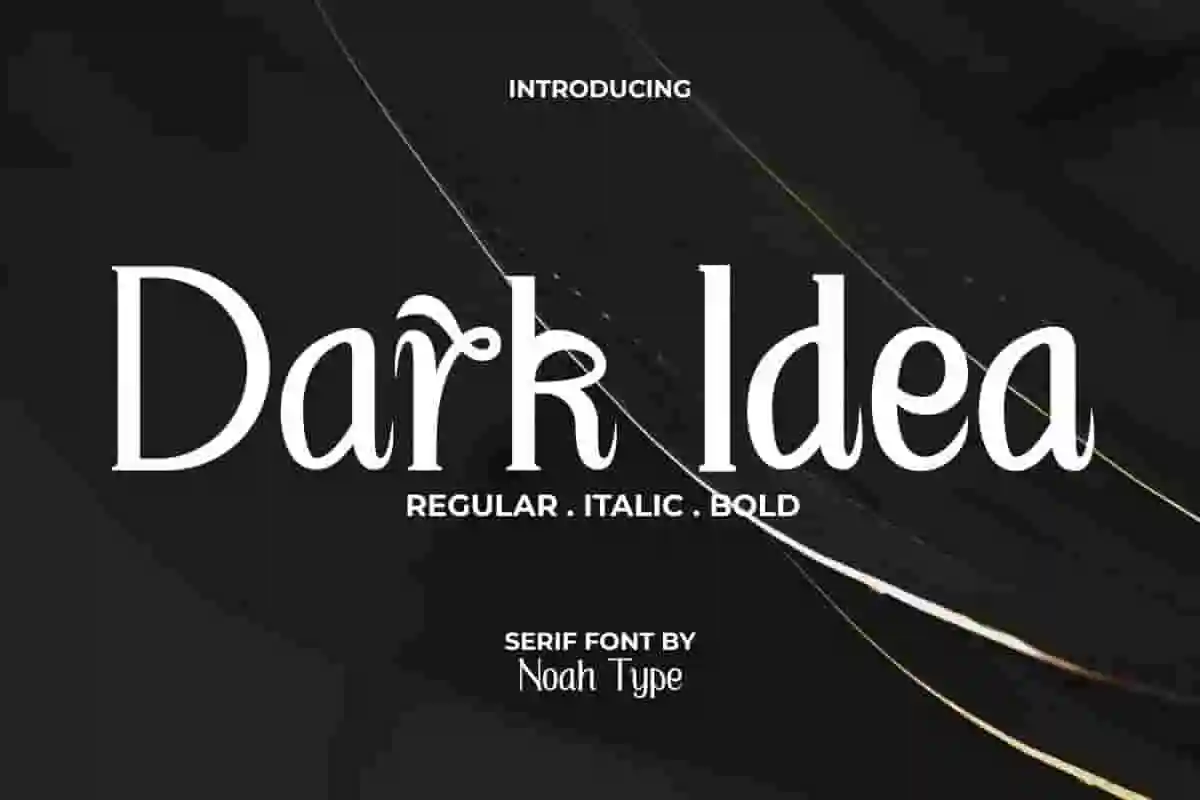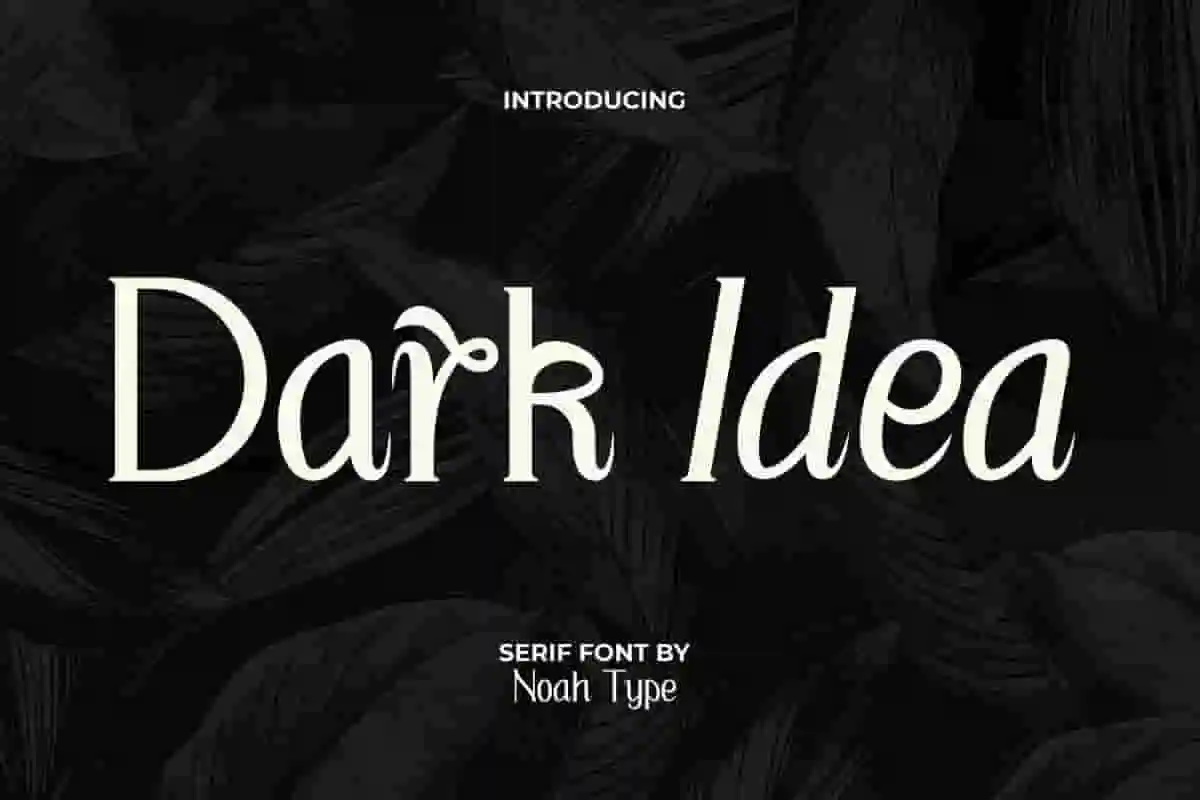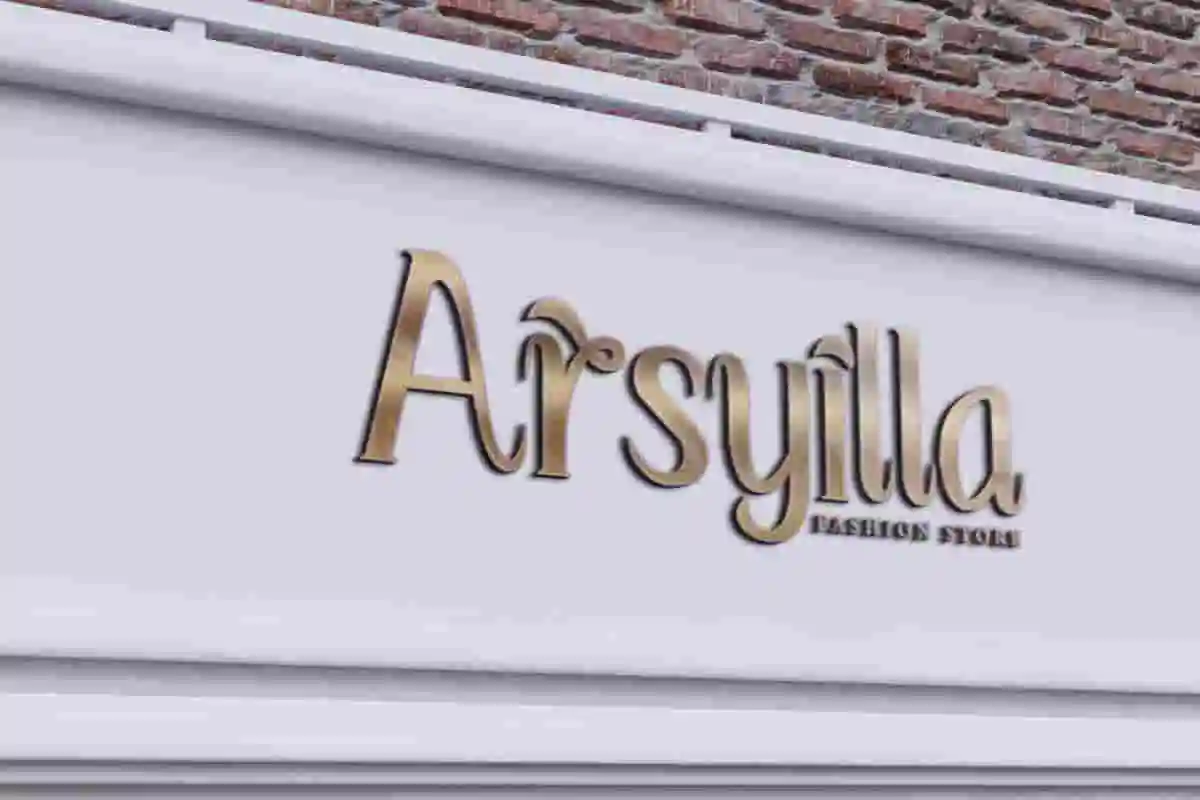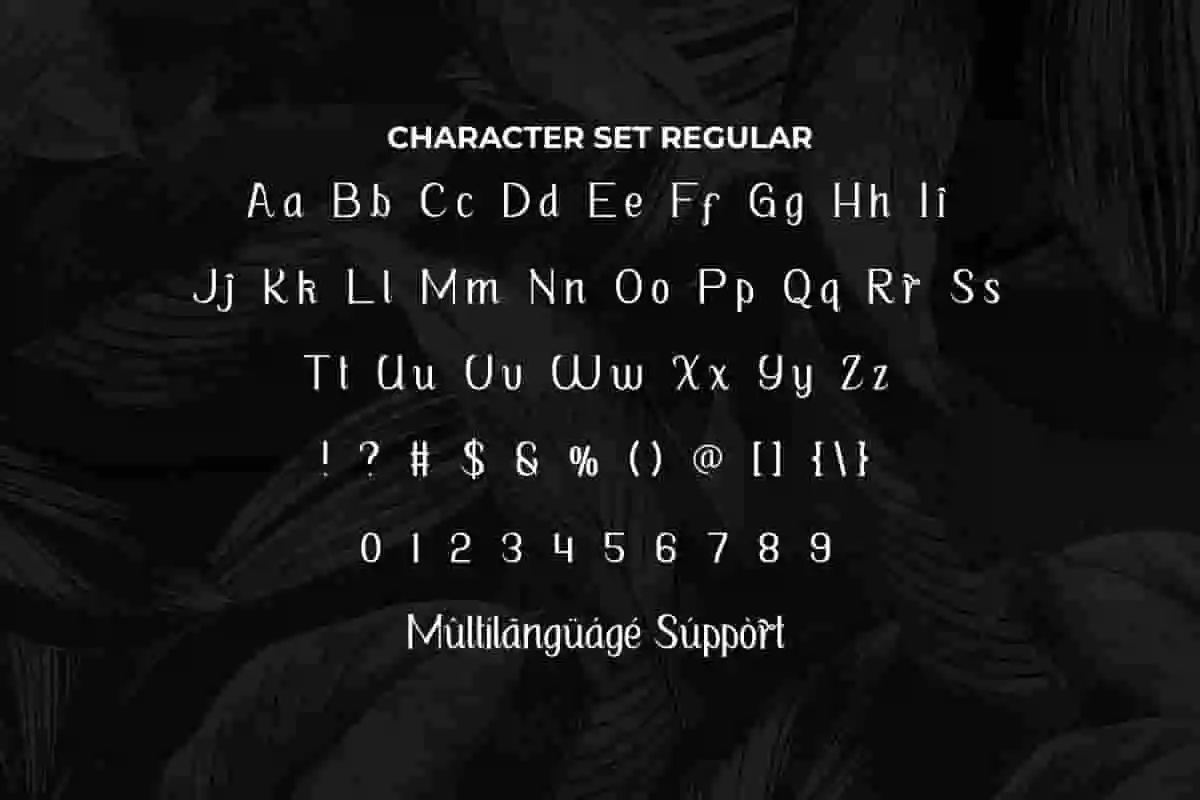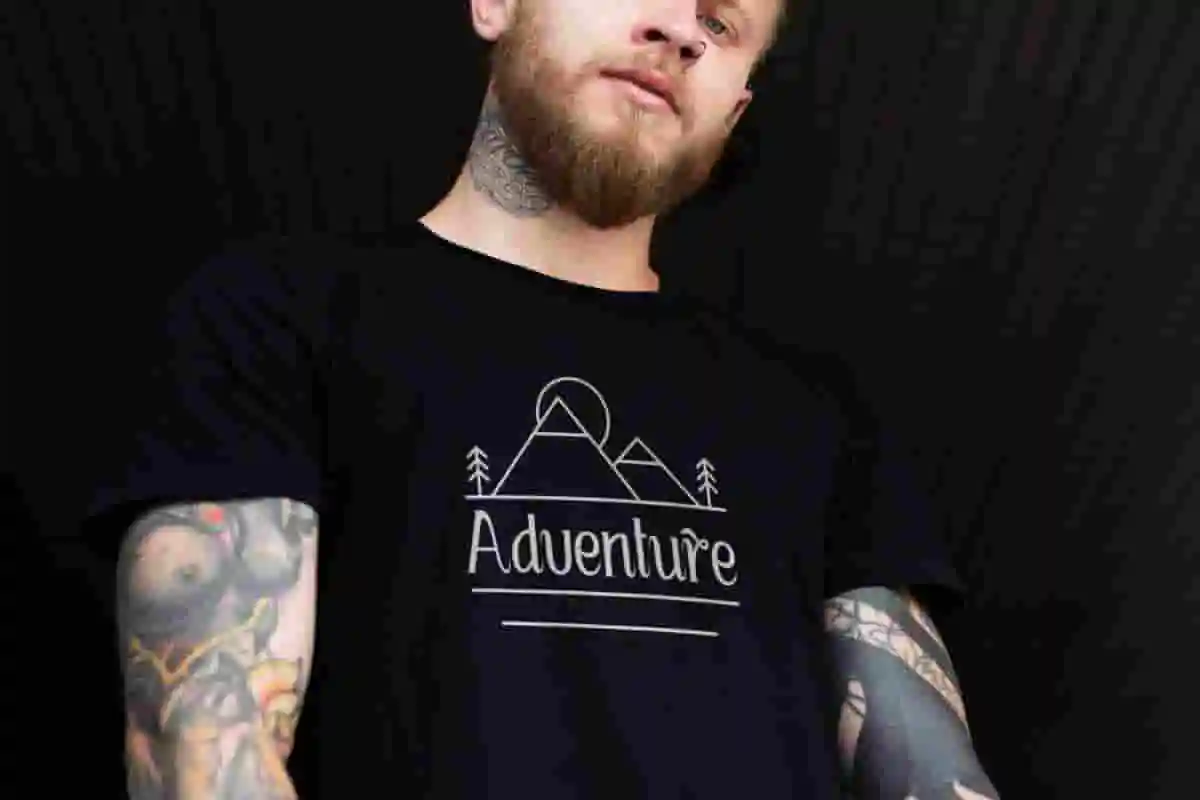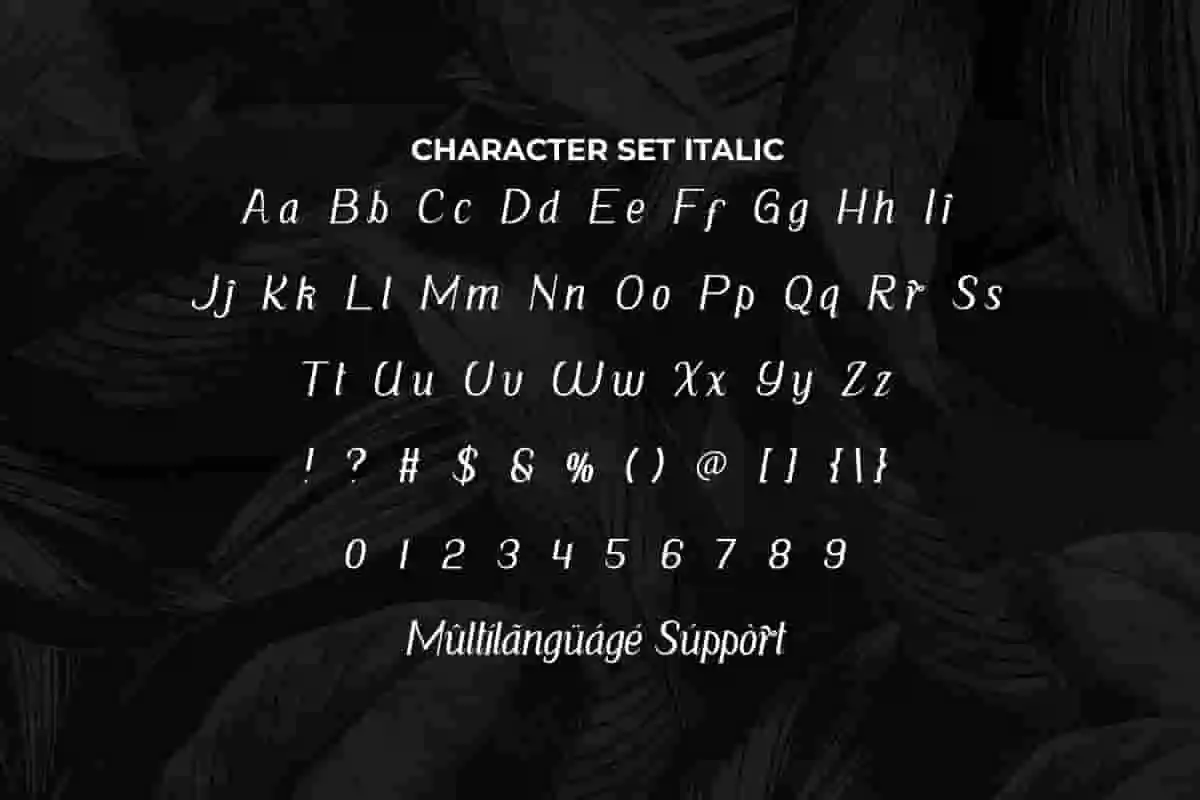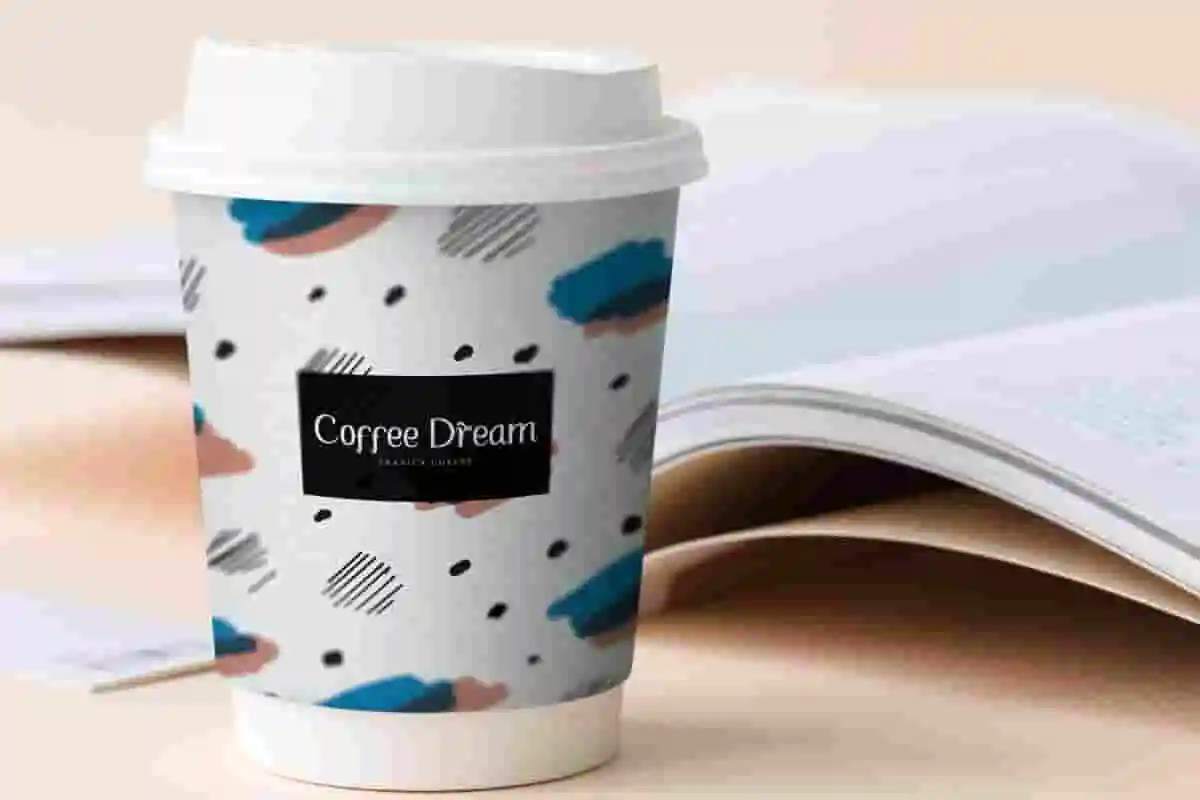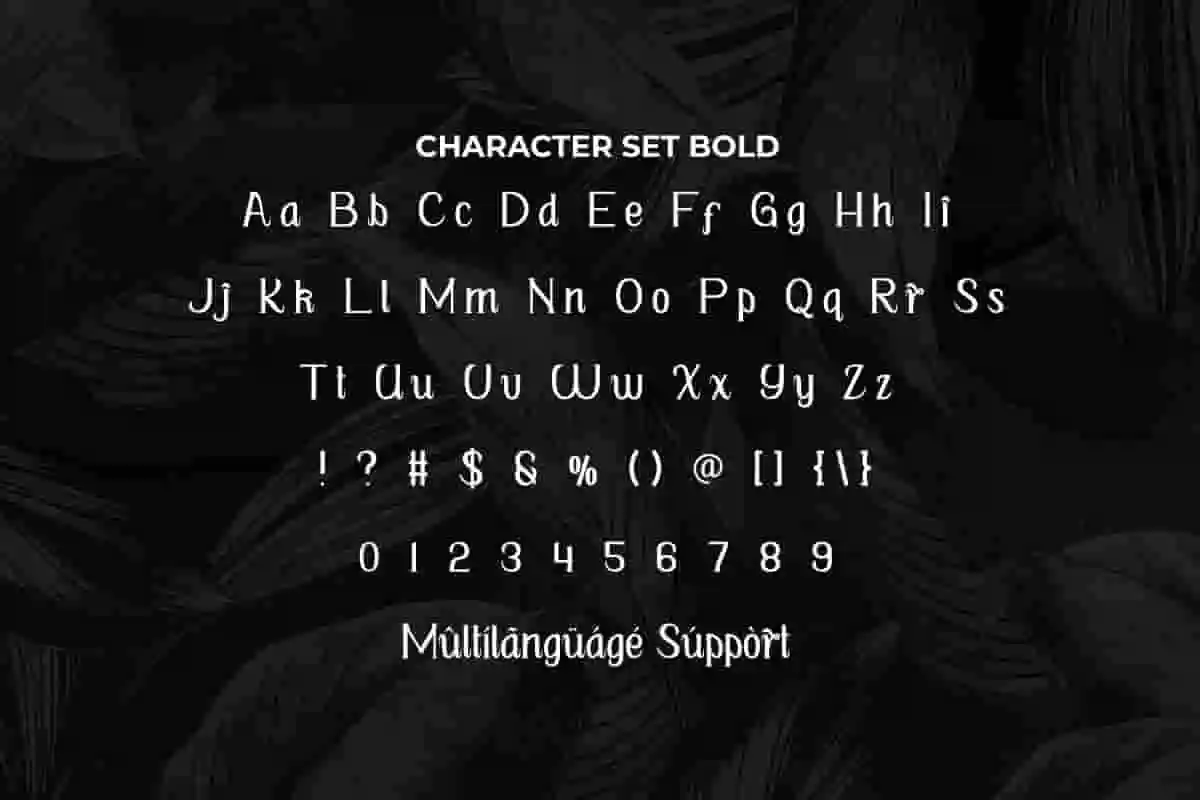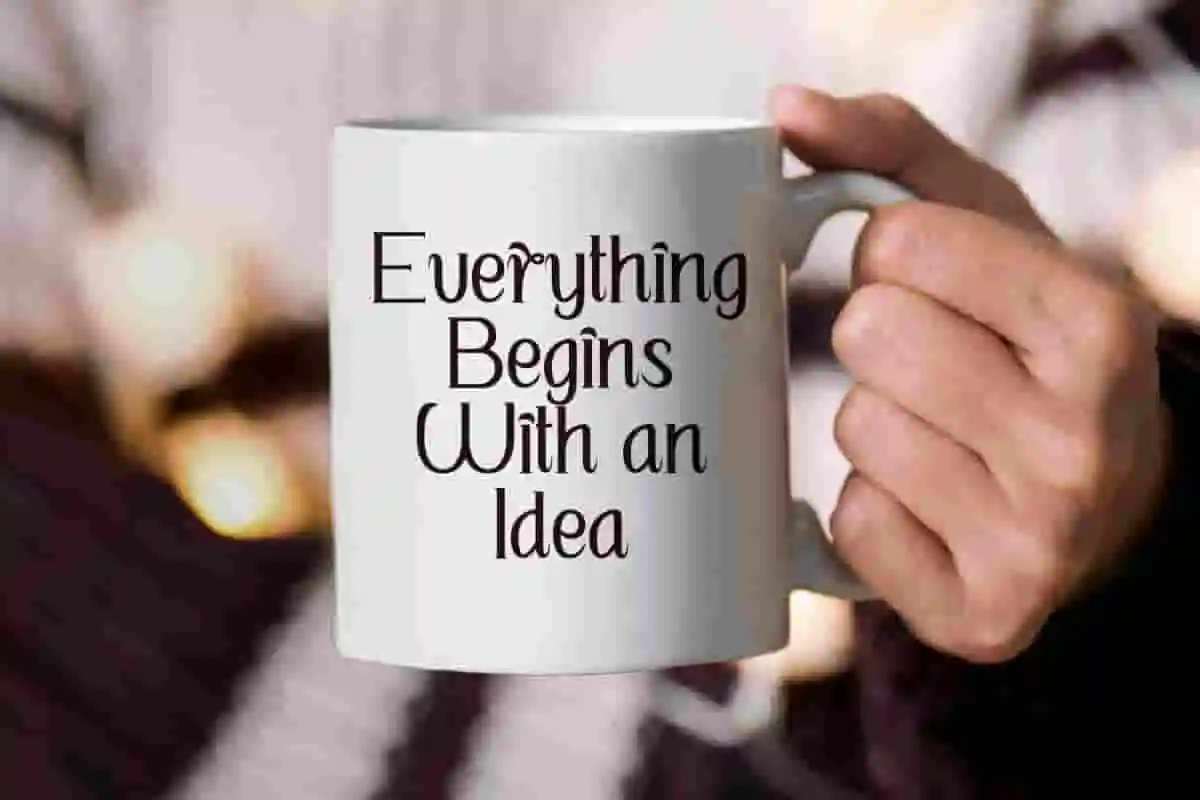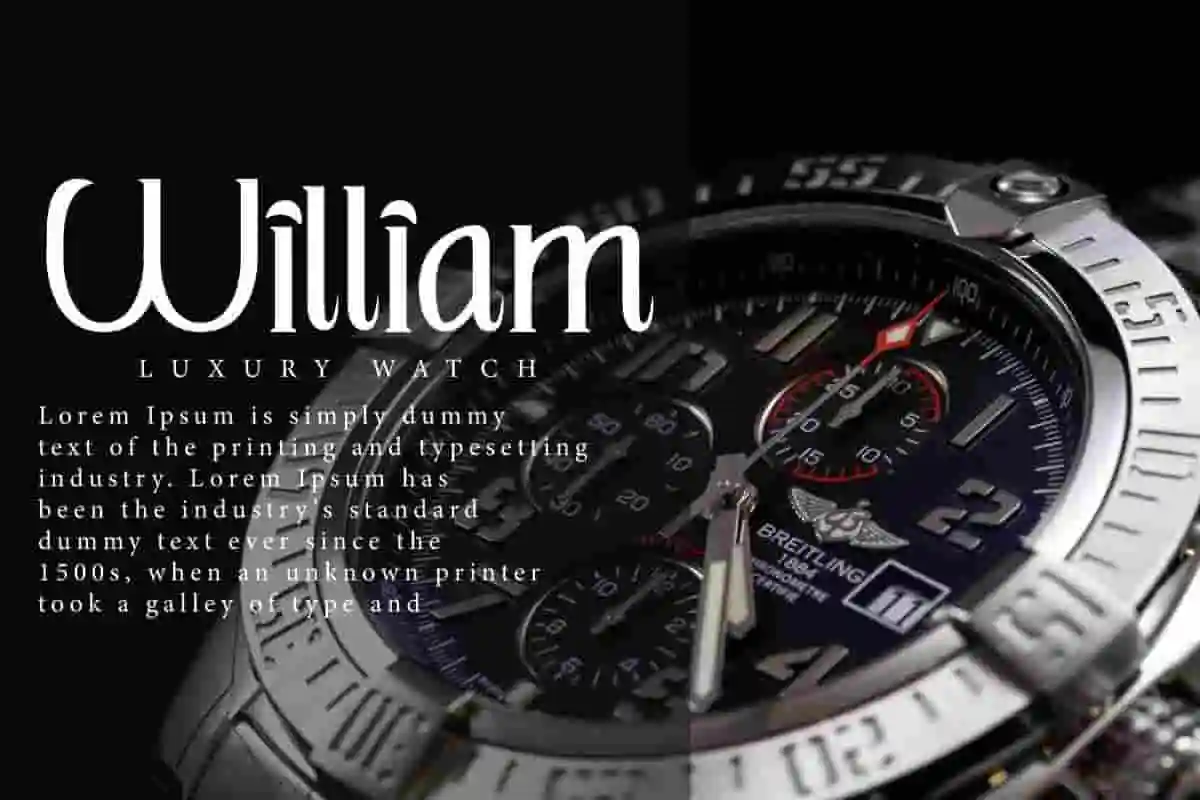
Dark Idea Font is a unique unusual display font made by Noah Type Std. This font is made into three different styles, there are Regular, Italic, and Bold, that will make your designs more interesting! It would be perfect choice for many industries, such as accessories, advertisement, café, fashion, florist, furniture, handicrafts, perfume, printing, publishing, real estate, restaurant, and more!
Dark Idea Font include full set of Uppercase and Lowercase Basic Characters, Numerals and Punctuation.
Dark Idea features smooth curves, refined lines, and a slightly playful edge, making it versatile for branding, packaging, editorial layouts, invitations, and social media graphics. Whether you’re crafting a luxury logo or a cozy lifestyle blog header, this font adapts beautifully to any creative vision.
The casual serif style offers a modern twist on traditional typography, making it perfect for both contemporary and vintage-inspired designs.